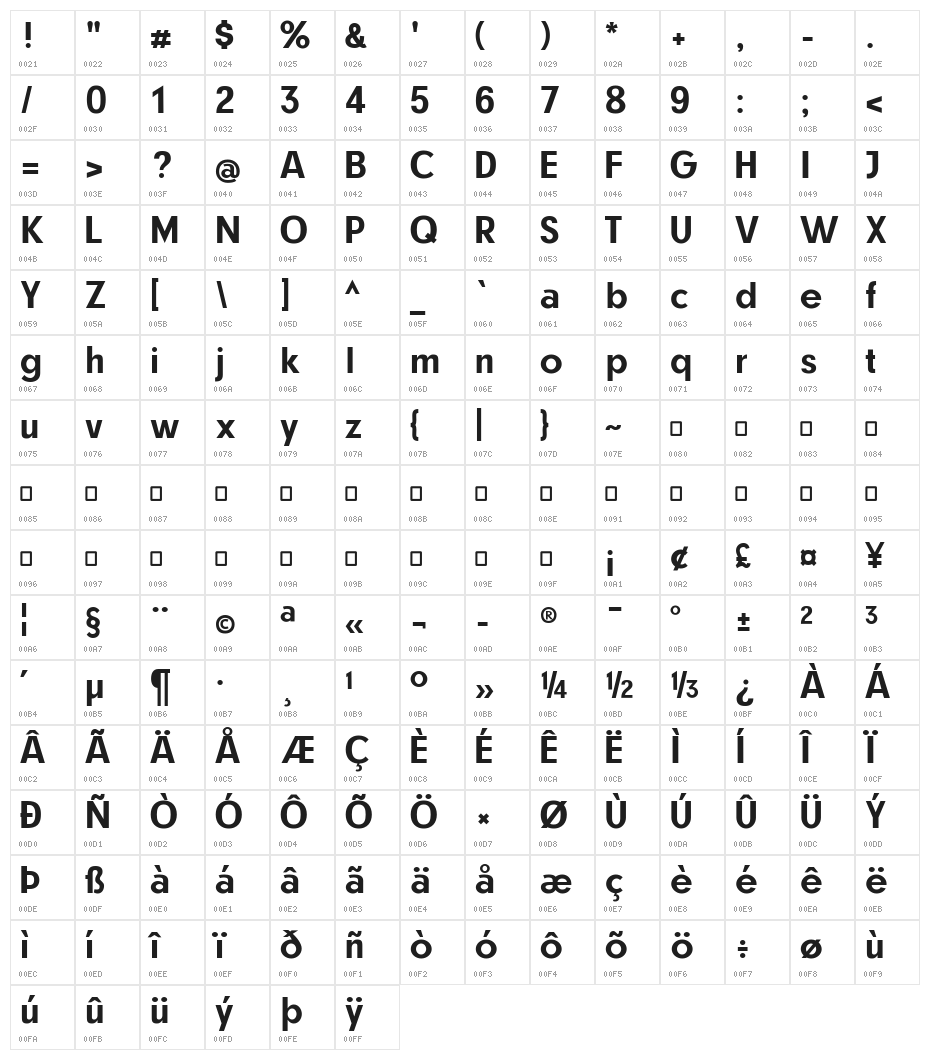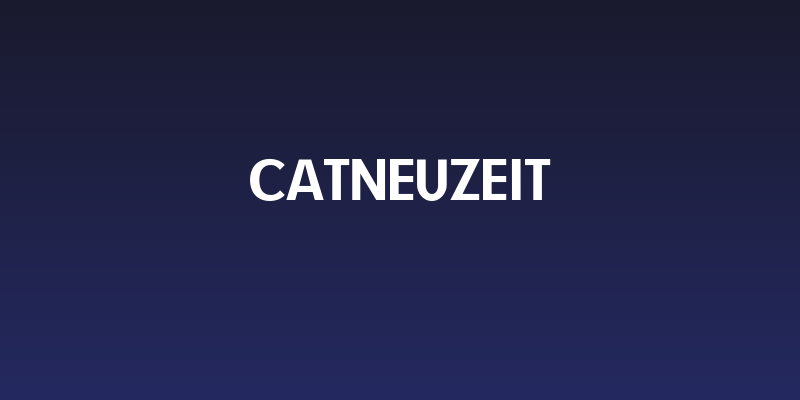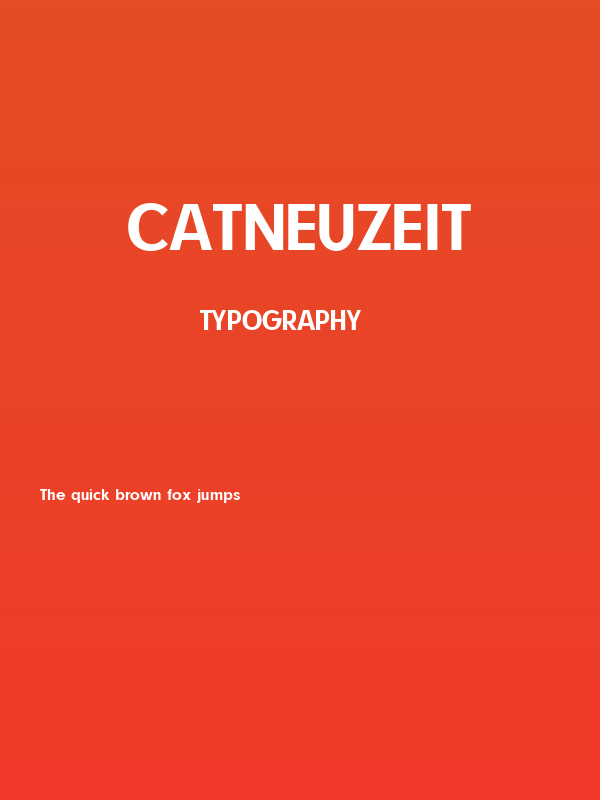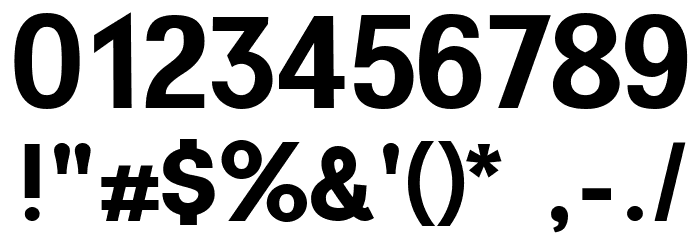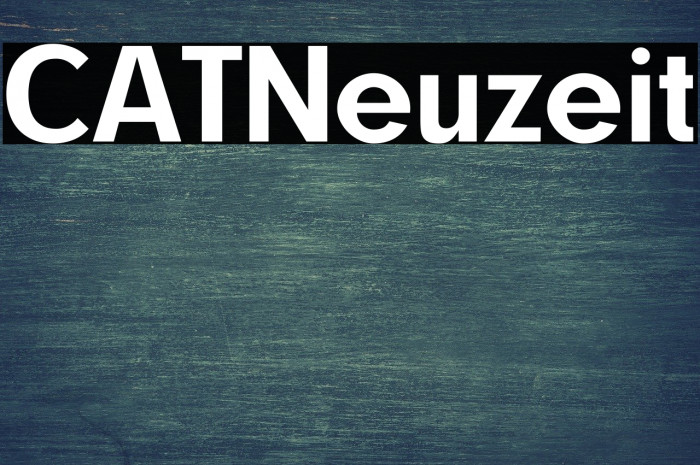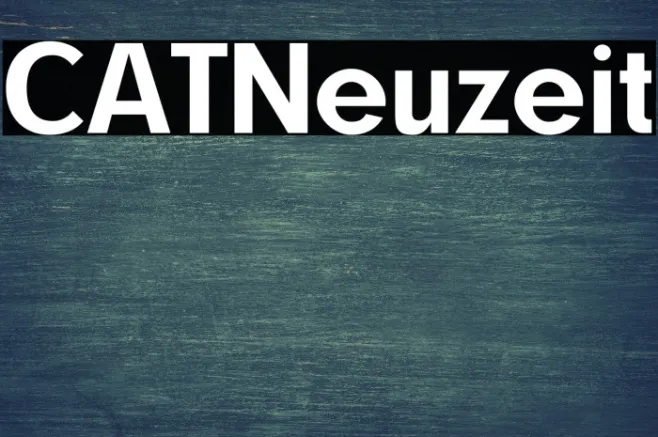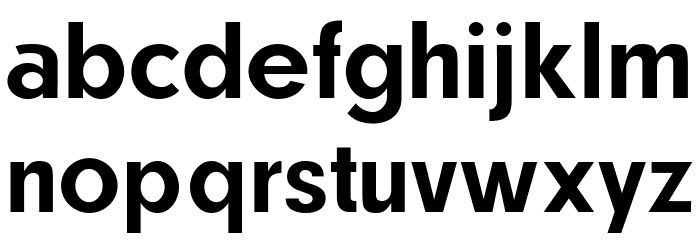
CATNeuzeit Font
CATNeuzeit Description
This font exhibits a clean and modern sans-serif style, characterized by its bold and uniform stroke weight. The characters are well-proportioned with a consistent height, offering excellent legibility. The uppercase letters are strong and assertive, while the lowercase letters maintain a friendly and approachable appearance. The numerals are clear and distinct, making them suitable for various applications. The special characters are designed with simplicity in mind, ensuring they blend seamlessly with the rest of the font. Overall, this font is versatile and can be used in a wide range of design projects.